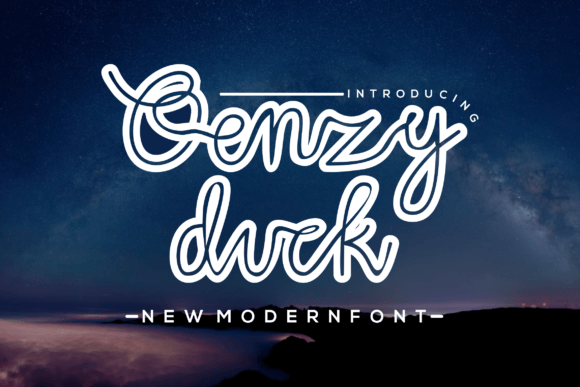
Dive into the world of knowledge and creativity with Qenzyduck Font, an extraordinary and elegant creation by prayoga_std. This modern handwritten script is not just a font; it's an artistic expression waiting to grace your academic posters and projects.
Qenzyduck isn't merely a collection of characters; it's an invitation to bring forth your academic brilliance and artistic flair. Each letter dances across the page—a symphony of sophistication and beauty—elevating your words into captivating expressions. Its refined curves reflect your dedication to knowledge, while its timeless style speaks volumes about your appreciation for aesthetics.
Picture your academic poster adorned with Qenzyduck's allure, capturing the attention of professors, peers, and scholars alike. Let your research and insights shine through the captivating charm of this font, leaving a lasting impression on your audience. Its graceful strokes will lend an air of authority to your findings, while its flowing rhythm invites readers to delve deeper into the depths of your research.
Unleash your creativity with Qenzyduck's versatility. From research papers and presentations to creative projects and personal expressions, this font effortlessly adapts to your needs. Whether you're crafting a poster for a science fair, designing invitations for a conference, or pouring your heart into a personal journal, Qenzyduck becomes your trusted companion, transforming your words into works of art.
Experience the joy of seamlessly expressing your academic prowess and creative passions with Qenzyduck. Its carefully crafted characters dance across the page, exuding an aura of confidence and expertise. Embrace the beauty of knowledge and let Qenzyduck be your muse, propelling you towards academic success and creative fulfillment.